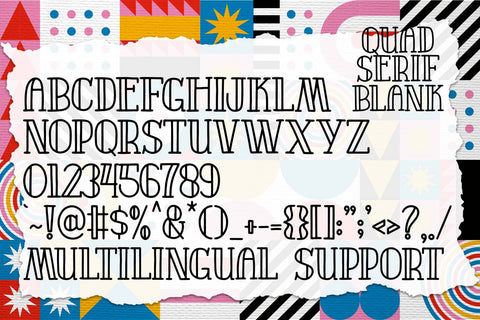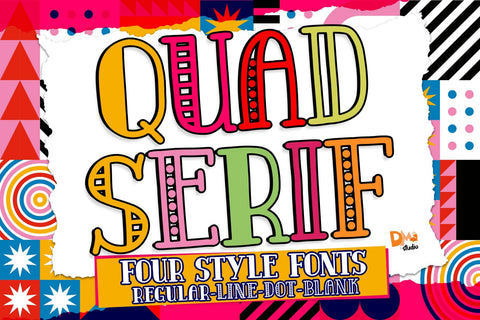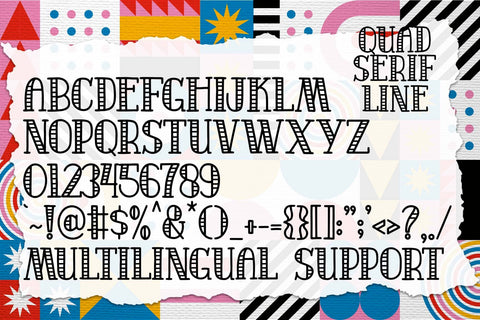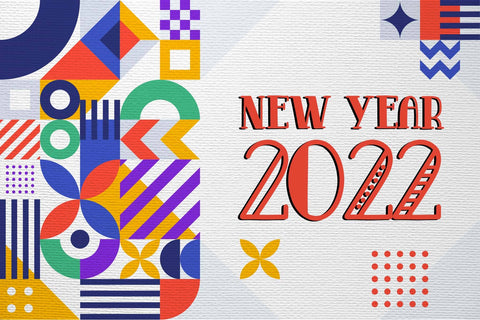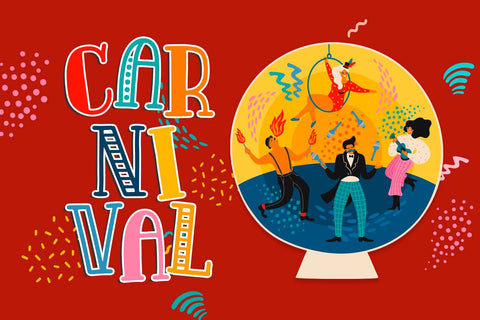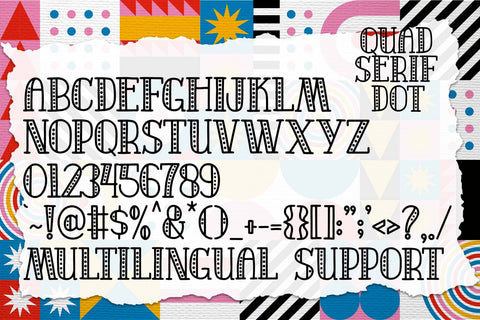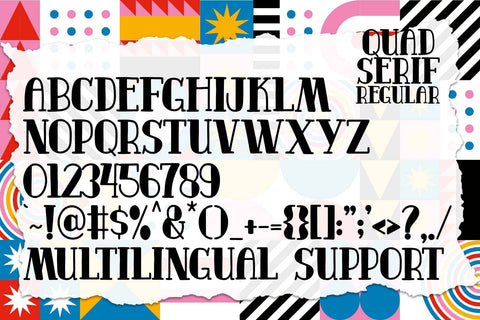
Quad Serif Font
The Quad Serif Font is a versatile and modern typeface designed for clear and impactful communication. With its clean lines and sharp edges, this font is perfect for a wide range of design applications, from editorial to branding, providing a sleek and professional appearance.
- Quad Serif Design: The font boasts a distinctive quad serif design, combining the elegance of traditional serifs with a modern and geometric twist. It's a contemporary take on a classic style, making it suitable for both digital and print design.
Versatility in Usage:
- Ideal for editorial design, bringing a polished and professional look to magazines, newspapers, and books.
- Perfect for branding, creating a distinctive and memorable visual identity for businesses and products.
- Well-suited for web design, ensuring a modern and readable font for online content.
- Editorial Design: Elevate your editorial layouts with the Quad Serif Font, providing a clean and sophisticated look to articles and publications.
- Branding: Establish a strong brand presence with this modern serif font, conveying professionalism and reliability in your logos, business cards, and marketing materials.
- Web Design: Ensure a consistent and visually appealing reading experience on your website with the Quad Serif Font's web-friendly formats.